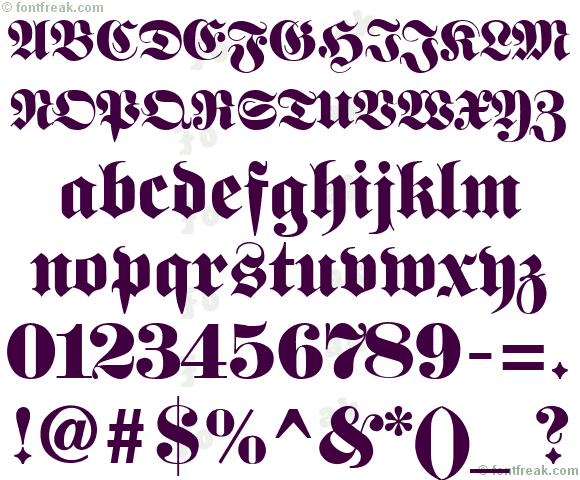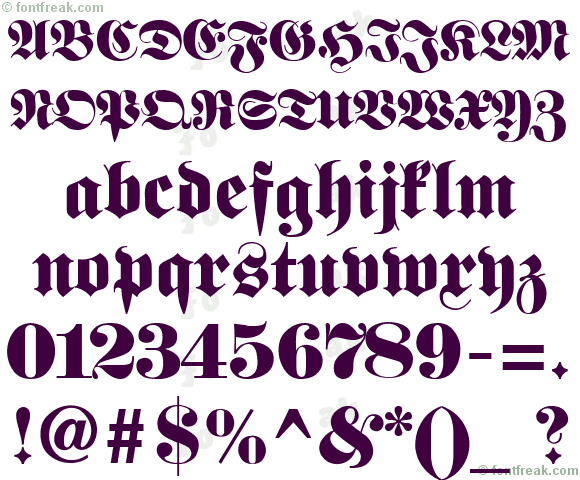
Fette UNZ Fraktur
Fette classic UNZ Fraktur
The Fette UNZ Fraktur font, designed by Peter Wiegel, embodies a classic blackletter style that draws inspiration from traditional German typography. This serif font is characterized by its strong, bold strokes and intricate decorative elements, which evoke a sense of historical significance. The contrast between thick and thin lines offers an eye-catching visual appeal, while the sharp edges and angular forms contribute to its distinctive character. The spacing is carefully balanced, allowing for clarity even in larger text arrangements, making it suitable for various applications.
Fette UNZ Fraktur excels in specific use cases, particularly in settings that require a touch of elegance and nostalgia. It is ideal for wedding invitations, where its ornate style can elevate the overall aesthetic. Additionally, the font works wonderfully for movie posters, especially in genres that seek to evoke a sense of tradition or drama. Restaurant menus featuring German or themed cuisine can benefit from its historical flair, enhancing the dining experience. Graphic designers and small business owners looking to create memorable branding will find this font particularly appealing for logos or promotional materials.
The target audience for Fette UNZ Fraktur includes graphic designers, small business owners, and content creators who appreciate the artistry of typography. Its unique style allows users to make a bold statement while maintaining a sense of sophistication.
In conclusion, the Fette UNZ Fraktur font stands out due to its rich visual heritage and versatility. Its ability to convey a sense of tradition while remaining accessible for modern use makes it a valuable addition to any designer's toolkit. Don’t miss the opportunity to explore its charm with a Fette UNZ Fraktur font free download, perfect for your next creative project.